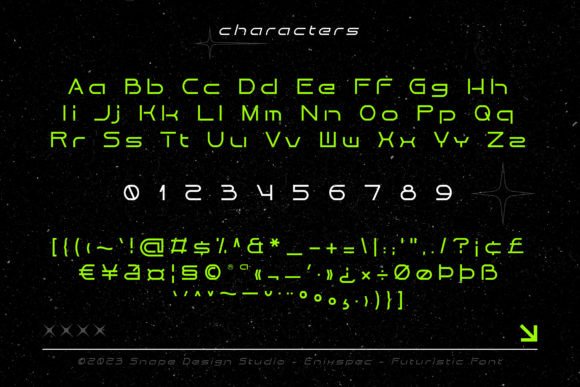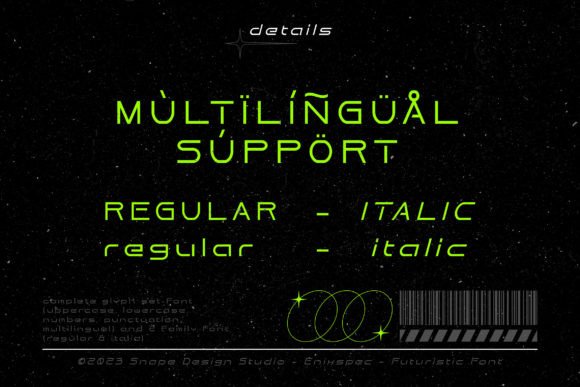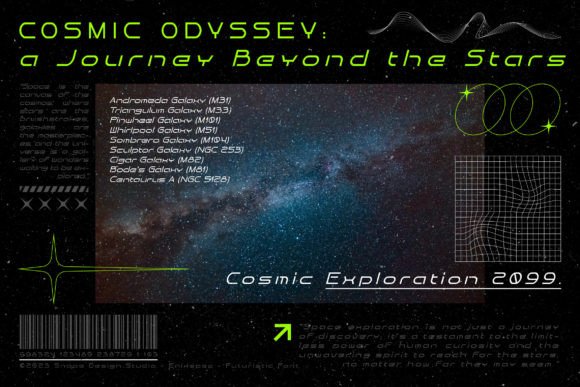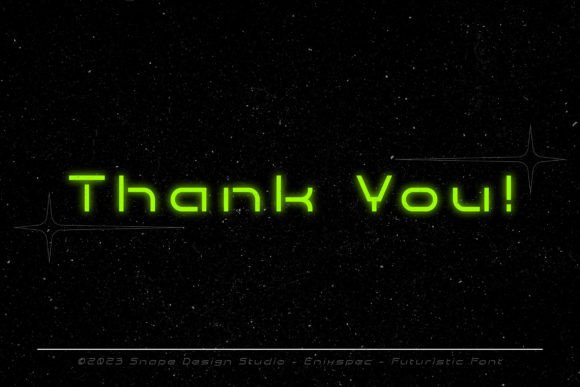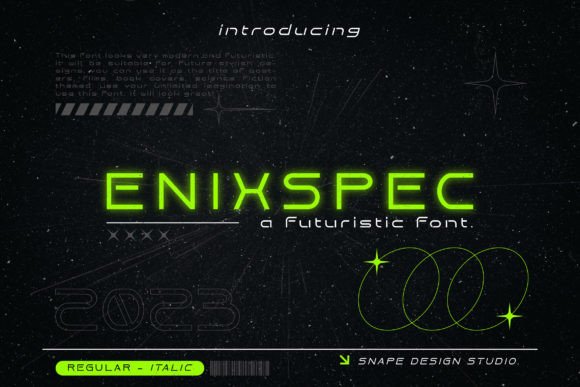
Introducing Enixspec: Revolutionizing Typography with Cutting-Edge Fonts
In the ever-evolving world of design, typography plays a crucial role in conveying messages, expressing creativity, and building brand identities. With the rise of digital platforms, the demand for innovative and versatile fonts has never been higher. This is where Enixspec comes into play, a game-changing collection of fonts that redefines the future of design by seamlessly blending technology and artistry.
The Intersection of Technology and Artistry
Enixspec is not just a font collection; it’s an experience. It’s about pushing the boundaries of what’s possible in typography, making it more dynamic, more interactive, and more engaging. Each font in the Enixspec collection is meticulously crafted to offer a sleek, modern aesthetic that captures the essence of contemporary design. Whether you’re working on a sci-fi themed project, tech branding, or any endeavor that requires a modern edge, Enixspec fonts are designed to elevate your creative output.
Key Features of Enixspec Fonts
- Sleek and Dynamic Characters: Enixspec fonts are characterized by their clean lines, futuristic vibe, and dynamic appeal. Each character is designed to contribute to a cohesive and impactful visual statement.
- Versatility: The collection offers a range of styles and variations, ensuring that there’s an Enixspec font to fit any project’s needs. From bold and dramatic to subtle and elegant, the versatility of Enixspec fonts is unmatched.
- User-Friendly Customization: Understanding the importance of flexibility in design, Enixspec fonts come with user-friendly customization options. Designers can easily modify the fonts to better suit their projects, making the creative process more efficient and enjoyable.
- Perfect for Sci-Fi and Tech Themes: The futuristic look of Enixspec fonts makes them particularly well-suited for sci-fi themes, tech branding, and any project that demands a cutting-edge aesthetic.
Empowering Creativity
Enixspec is more than just a font collection; it’s a tool for creative empowerment. By providing designers with high-quality, versatile, and easy-to-use fonts, Enixspec aims to inspire creativity and innovation. Whether you’re a professional designer working on a client’s project or a DIY enthusiast crafting your own brand identity, Enixspec fonts offer the perfect blend of form and function.
Why Choose Enixspec?
In a market saturated with generic fonts, Enixspec stands out for several reasons:
- Unique Aesthetic: Enixspec fonts offer a unique aesthetic that’s hard to find elsewhere. Their blend of technology and artistry results in a look that’s both modern and memorable.
- Quality and Craftsmanship: Each font in the Enixspec collection is crafted with attention to detail, ensuring high-quality typography that enhances any design.
- Support for Creative Projects: By choosing Enixspec, designers and crafters support a project that’s dedicated to pushing the boundaries of typography and design.
Enixspec represents a significant leap forward in typography, offering designers and crafters a collection of fonts that are as functional as they are beautiful. By combining sleek, dynamic characters with user-friendly customization options, Enixspec empowers creativity and redefines the possibilities of design. Whether you’re working on a futuristic sci-fi project or a cutting-edge tech brand, Enixspec fonts are the perfect choice for anyone looking to make a bold statement.